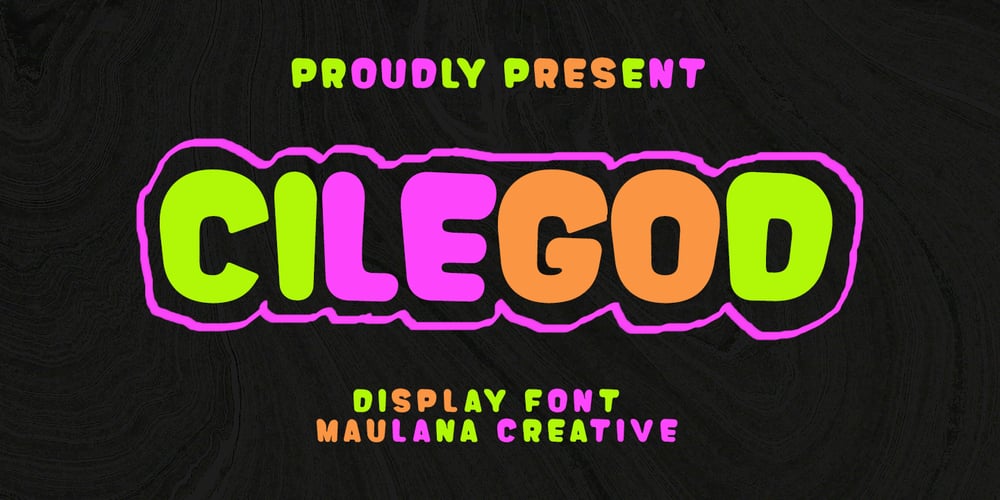
MC Cilegod Font Family was designed by Gilang Maulana and published by Maulana Creative. MC Cilegod contains 1 styles and family package options. Cilegod is a modern display font. With bold stroke, fun character with ligatures. To give you an extra creative work. Cilegod font support multilingual language. This font is good for logo design, Social media, Movie Titles, Books Titles, a short text even a long text letter and good for your secondary text font with script or signature typeface. Make a stunning work with Cilegod Display font.Cheers,Maulana Creative